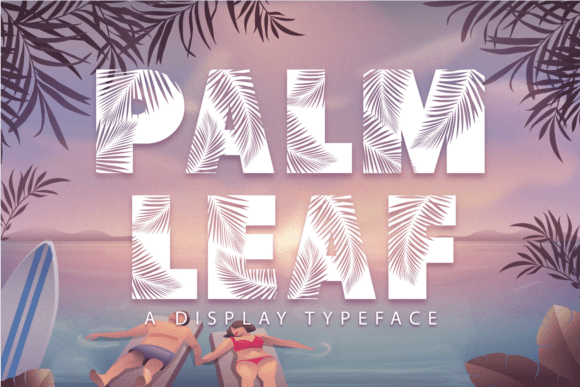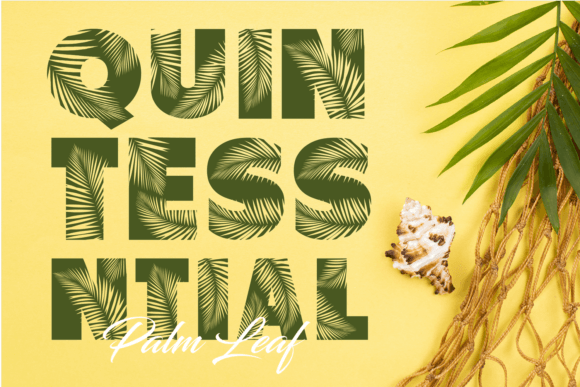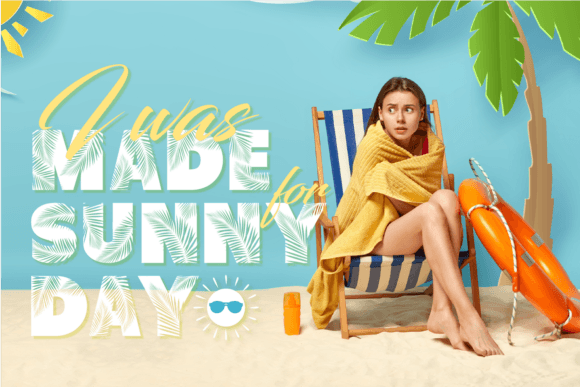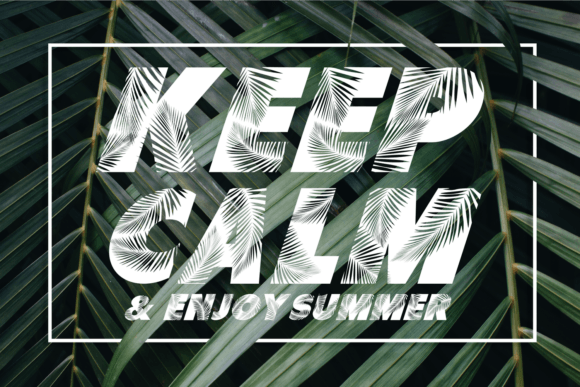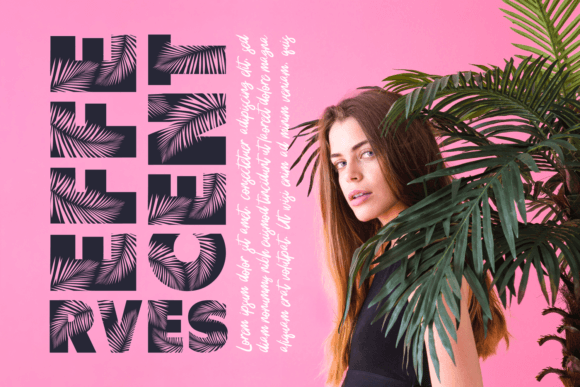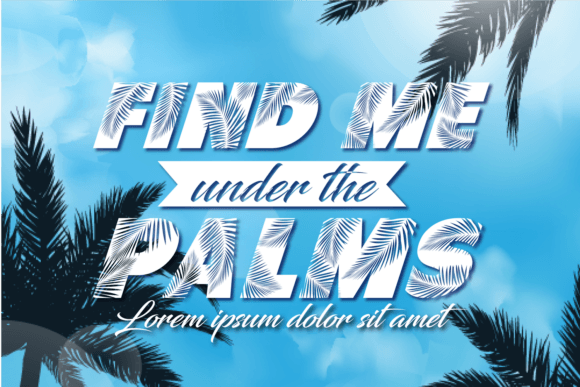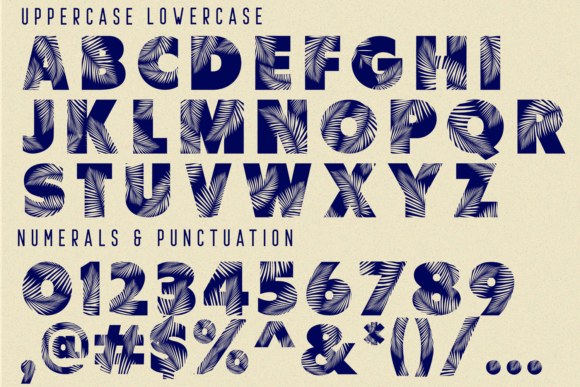
Palm Leaf Font is a cool, useful and unique decorative font. It’s a simple, fancy and playful display font. Whether you use it for cartoon related designs, children games or just any creation that requires a lovely touch, this font will be an amazing choice. You can use it for various projects, such as blog posts, logos, branding, ads, invitations, greeting cards, planners, photo albums, decorations, and much more.
Palm Leaf Font